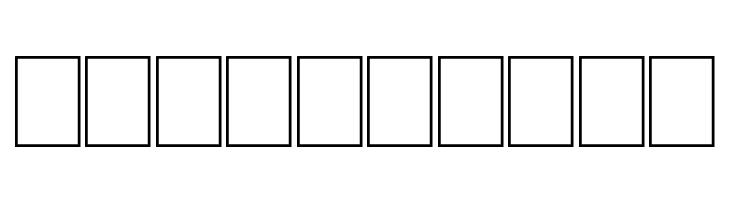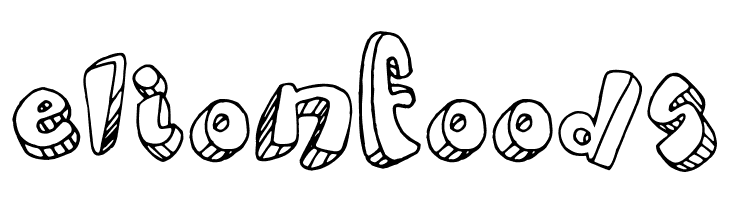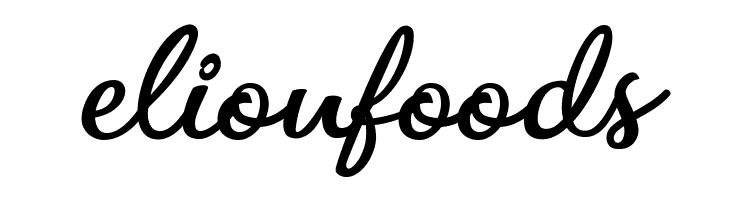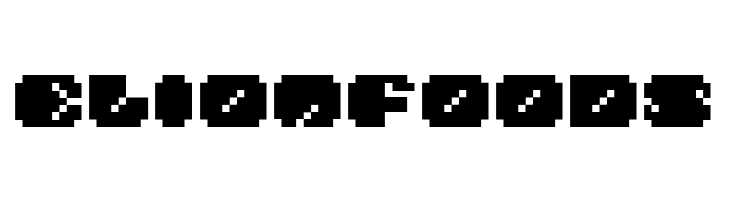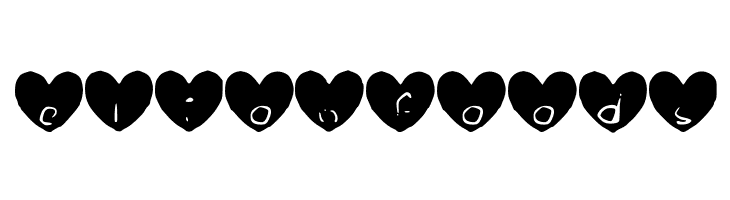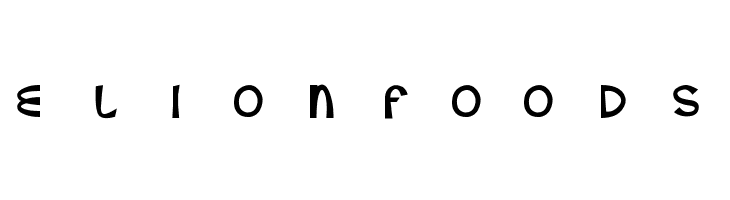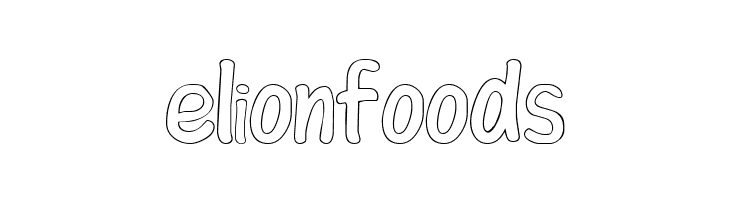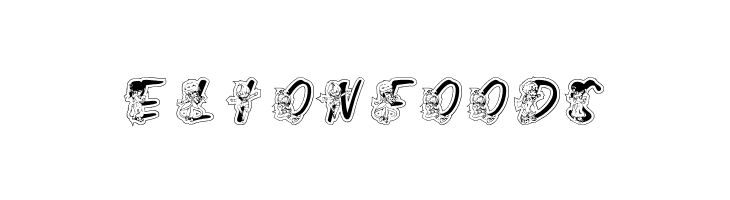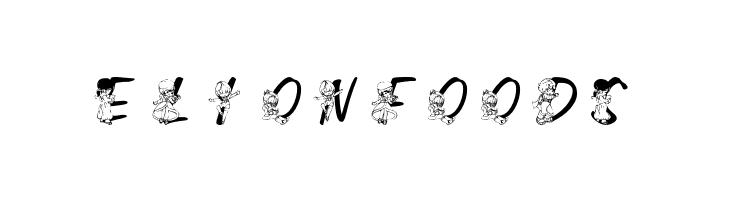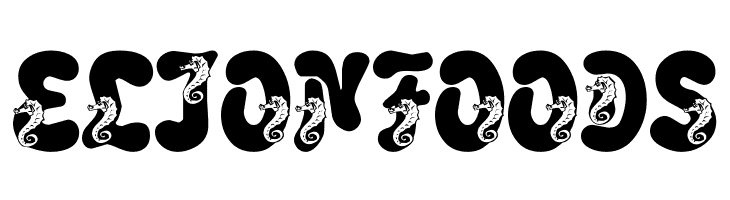
A bold, pixelated font with a modern, tech-inspired design.
A playful, 3D hand-drawn font with a bold, cartoonish style.
A flowing, cursive script font with elegant, sweeping forms and playful flourishes.
A bold, pixelated font with a retro, digital style.
A whimsical font with characters inside heart shapes, ideal for romantic and playful designs.
A playful, bold font with rounded, whimsical characters.
A playful, hand-drawn font with rounded, bubbly characters and an outline style.
A playful, outlined font with cartoon characters integrated into each letter.
A playful font with child illustrations integrated into each letter.
A bold, decorative font with seahorse embellishments, perfect for nautical themes.